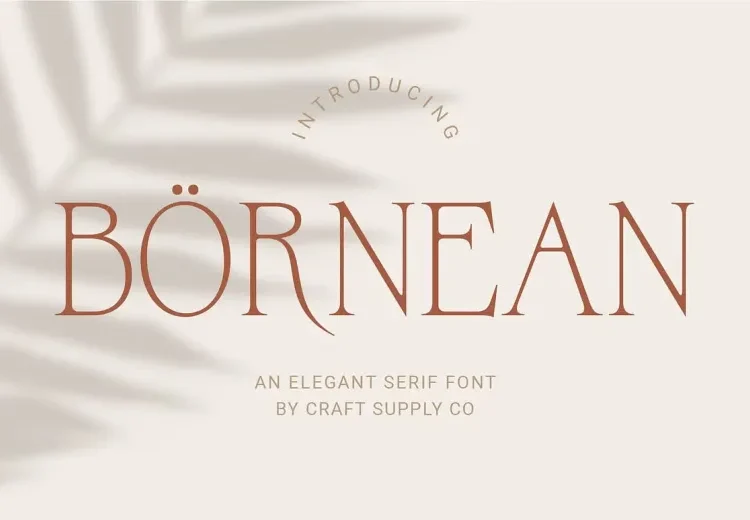
Bornean Font
Bornean is a testament to the timeless appeal of elegant serif typography. Its refined appearance and remarkable versatility make it an ideal choice for enhancing visual identities in fashion and beyond. Designed to offer both sophistication and functionality, Bornean enriches any project with a classic touch.
The font’s stylish serifs and balanced proportions make it perfect for a range of applications, from branding and high-end fashion presentations to editorial work and more. Whether you need to refine your brand’s image or add a sophisticated flair to your designs, Bornean provides both beauty and adaptability.
Bornean is versatile enough to meet the demands of various creative projects. Its timeless design ensures that it remains impactful and relevant, whether used in logos, invitations, packaging, or editorial layouts.